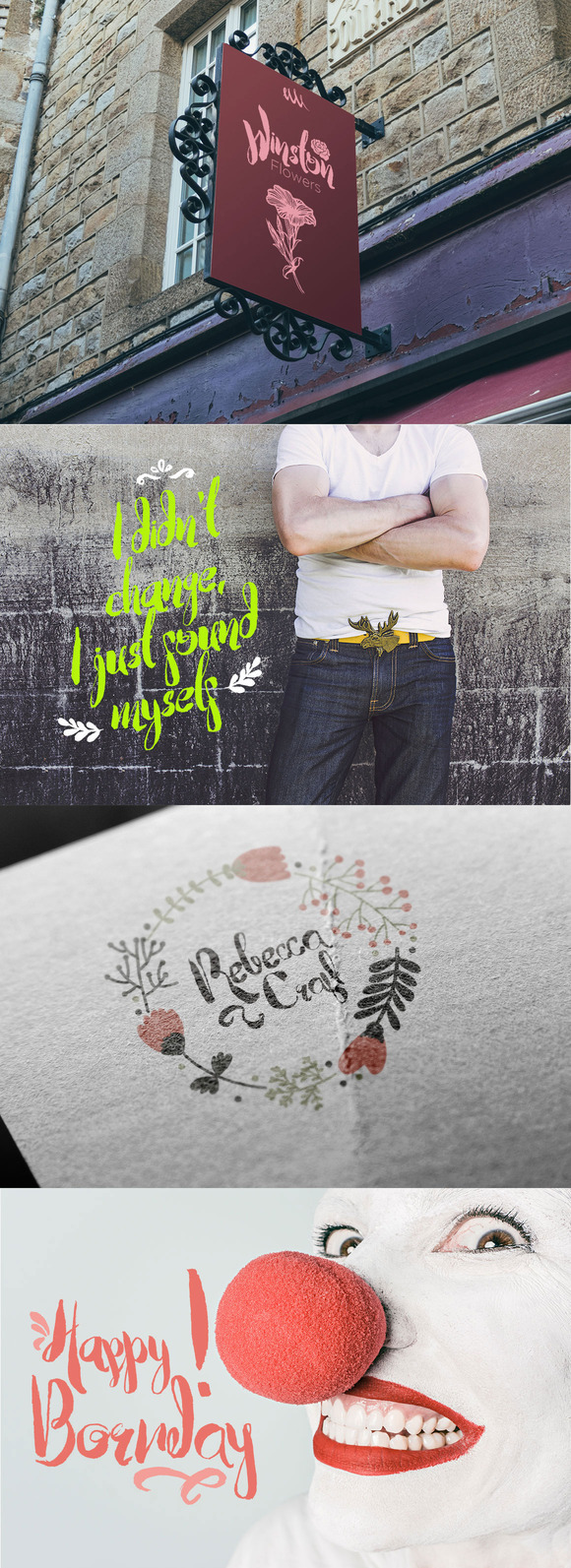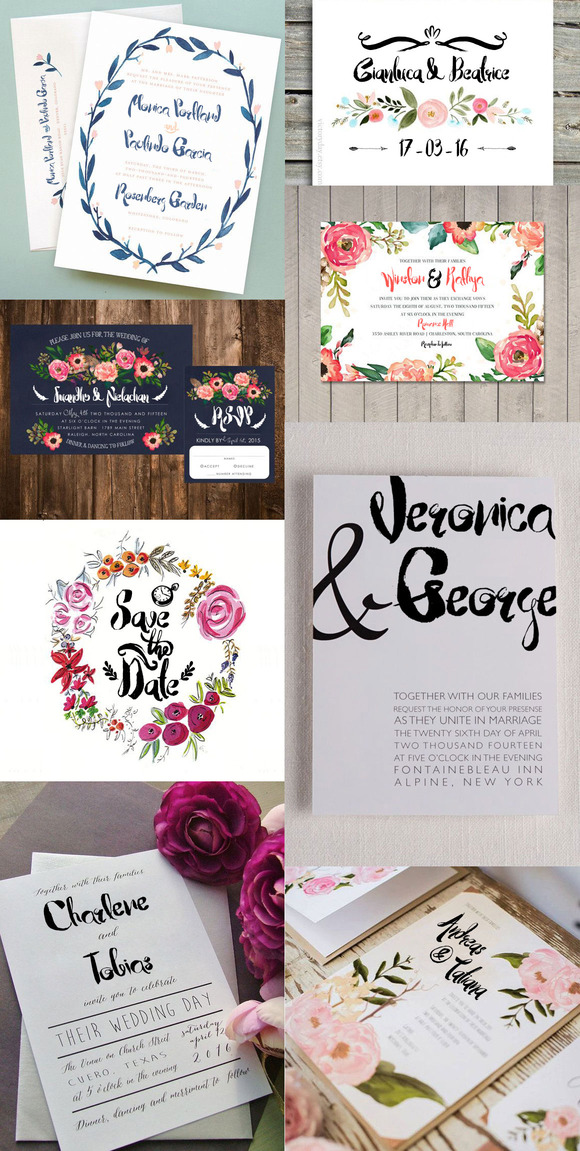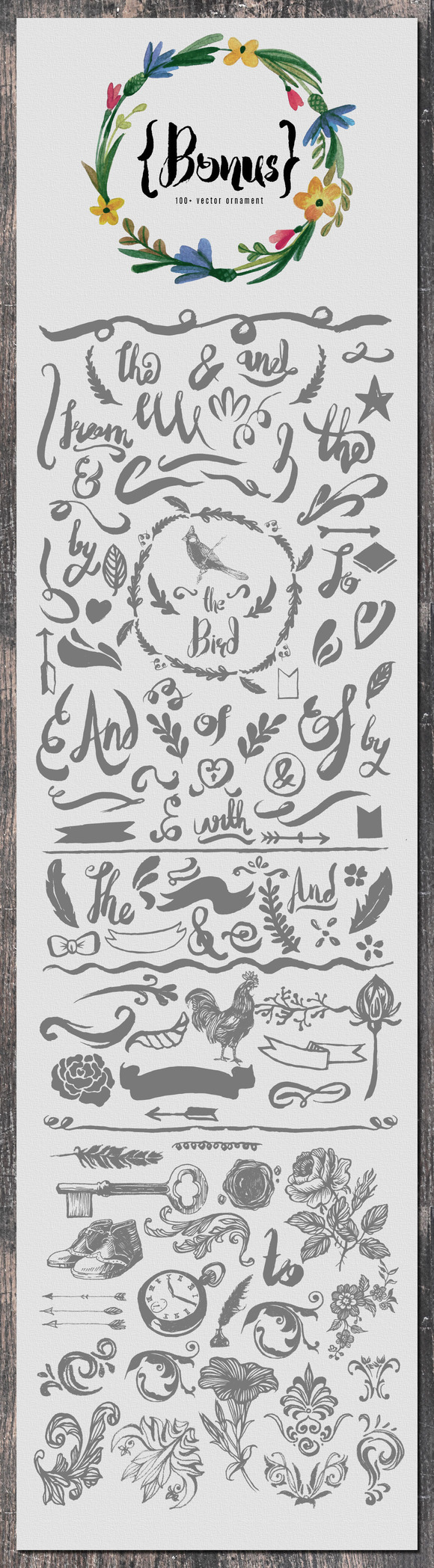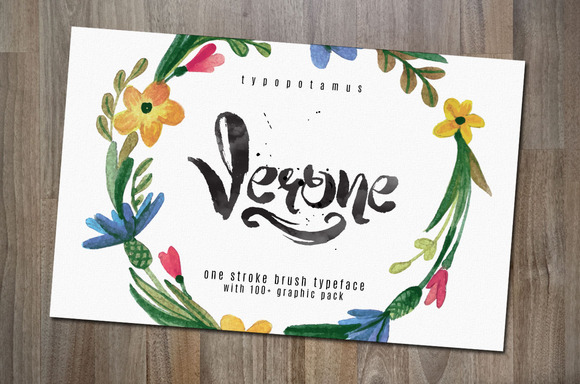
Verone Typeface
Verone is a 100% handmade typeface. Brought to give you a sweet, romantic handmade typographic style.
Complete lower-case and upper-case alphabet, punctuations, symbols, multi languages, ligatures and alternate style are included. Also bonus with 100+ vector ornament to make your design even more awesome.
The typeface is great for invitations, logos, quotes, headings, signature, t-shirt, letterhead, signage, labels, news, posters, etc.